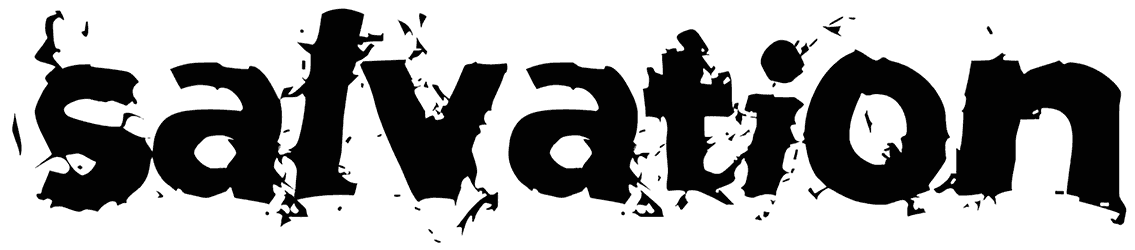
Salvation Font
Salvation is a trashed, destroy font, it’s bold, dirty, and has a rough, messy feel. It offers distorted characters that are deformed, but they have an enjoyable design. Each Salvation font’s letterform has a unique disp…
Salvation is a trashed, destroy font, it’s bold, dirty, and has a rough, messy feel. It offers distorted characters that are deformed, but they have an enjoyable design. Each Salvation font’s letterform has a unique display, which is an excellent point. Capitalized alphabets and punctuations are not included in Salvation.
A few places you might want to carry out this Salvation font would be logos, gaming, movie titles, flyers, and wherever you have in mind!